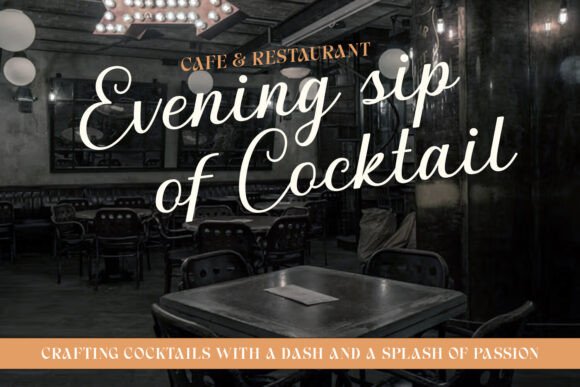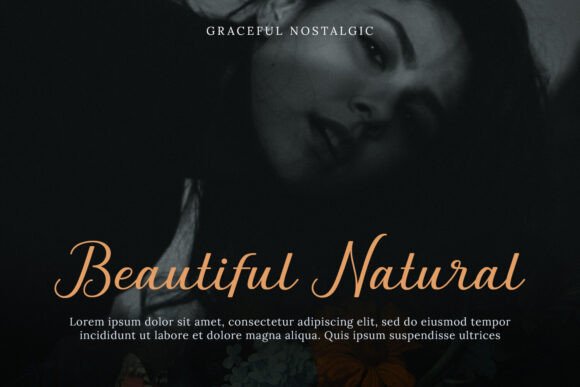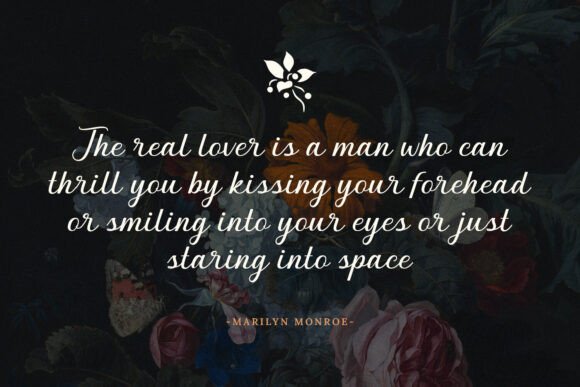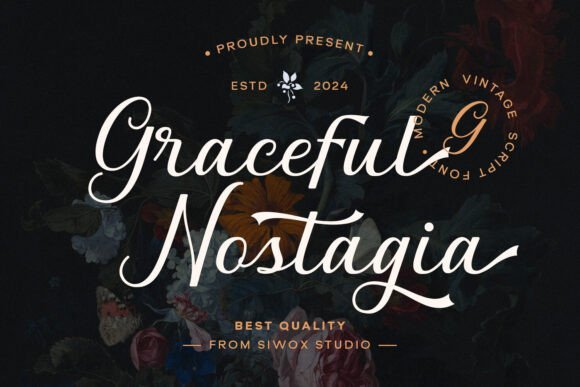
Graceful Nostalgia is a beautifully crafted script font that exudes vintage charm.
Perfectly suited for a range of Design , this font shines in logos, invitations, labels, magazines, books, and greeting cards Whether you’re designing packaging, fashion materials, or stationery, Graceful Nostalgia adds a timeless touch to your creations, making every project feel special and refined This font is PUA encoded which means you can access all of the amazing glyphs and ligatures with ease.
Graceful Nostagia Font offers exceptional quality and versatility, making it a valuable addition to your design toolkit. Whether you’re creating for personal projects or commercial use, Graceful Nostagia Font delivers professional results.